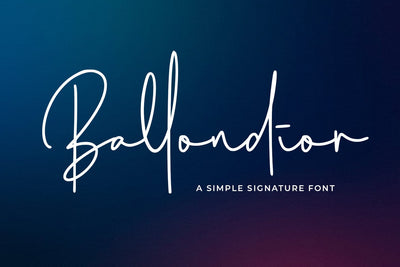
Ballondior
introducing
Ballondior
- a simple signature font -
Ballondior is a monoline signature font. It is great for logo, branding, packaging, t-shirt designs, cards, banners, social media, and anything of your projects.